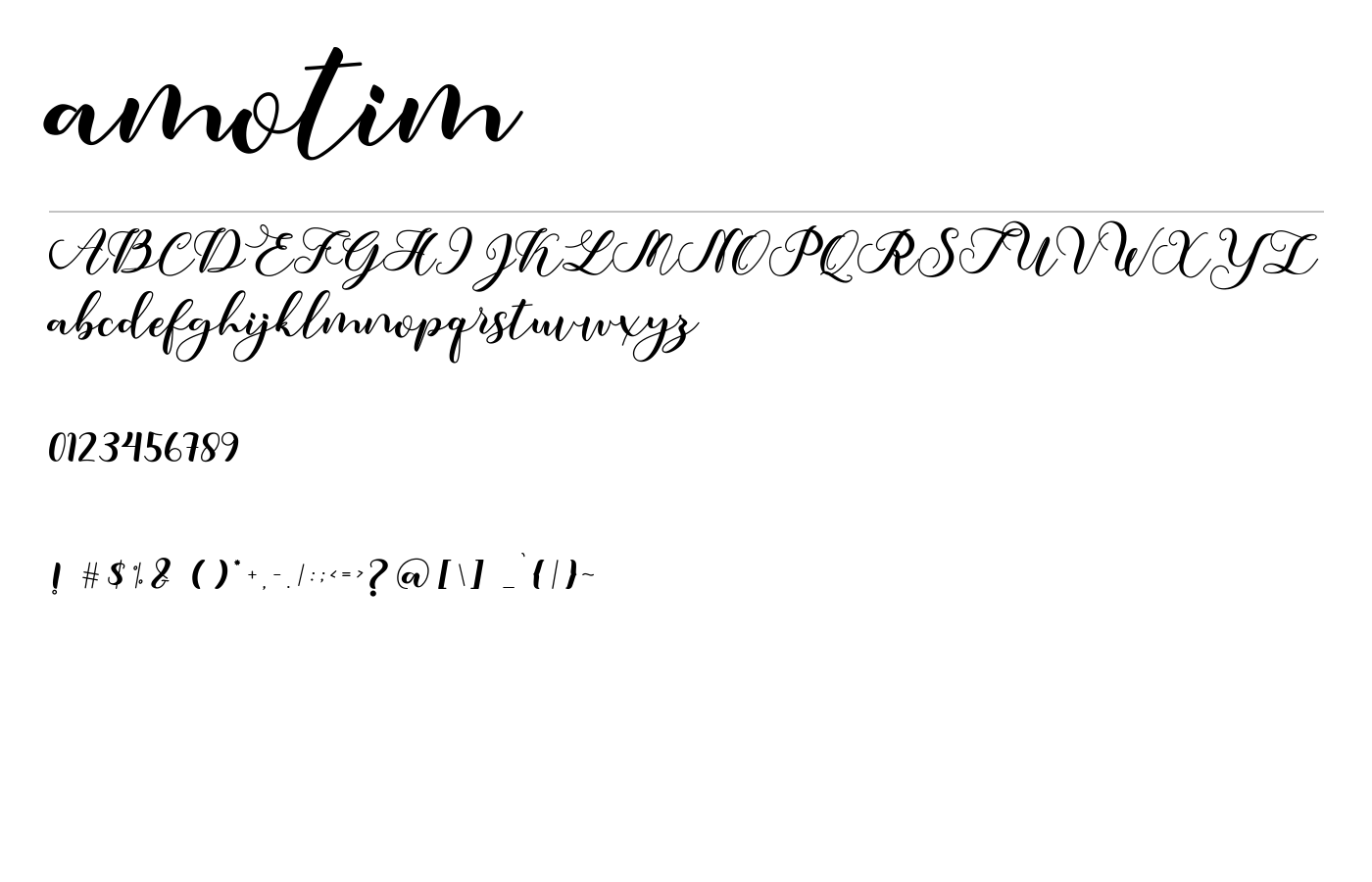
Amotim is an elegant script font with a flowing, calligraphic style characterized by its smooth curves and delicate contrasts between thick and thin strokes. Its graceful uppercase letters and lively lowercase forms, along with its refined numbers and punctuation, make it ideal for invitations, branding, and editorial designs that seek a sophisticated, artistic touch. This font works beautifully for projects aiming to convey charm, warmth, and a personal, handcrafted feel.